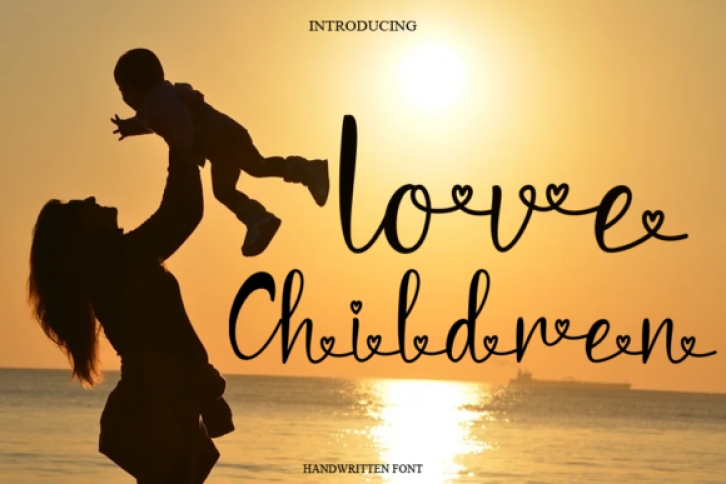
Love Children is a romantic and sweet calligraphy typeface with characters that dance along the baseline. It will add a luxury spark to any design project that you wish to create!